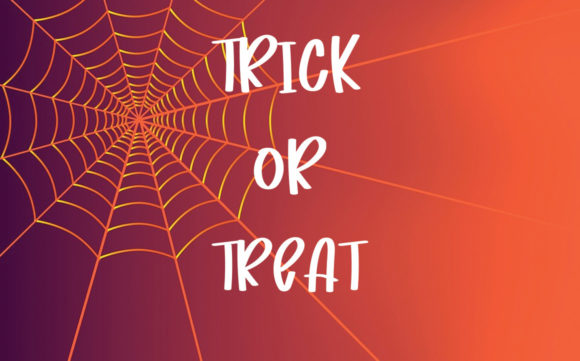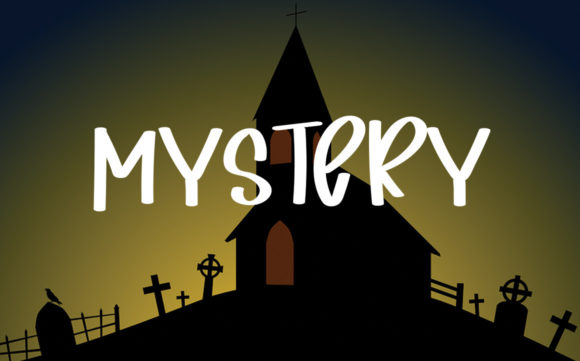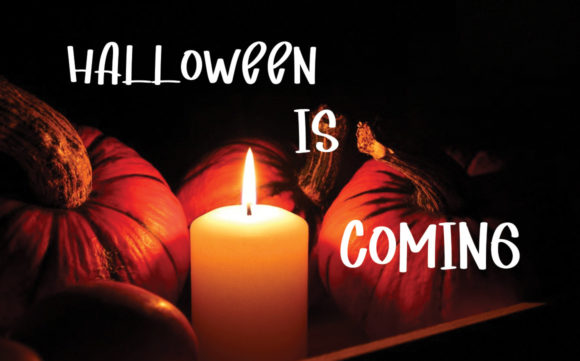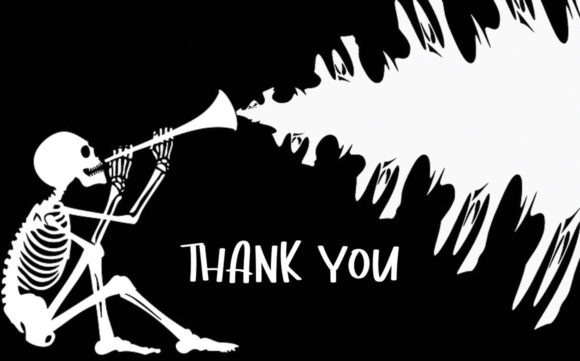
Introduction to Only Monster Font
Remember the moment when you finally nailed that creative project, and everything came together? The perfect blend of colors, the right balance of text and images, and that one element that made it truly pop? For many designers, that moment is often thanks to the right font choice.
Enter the Only Monster Font, a cool, quirky, and informal handwritten font that’s about to become your new go-to design resource. With its high-quality design and transparent background, this font is perfect for adding a personal touch to any project. Whether you’re working on a free download or a paid gig, the Only Monster Font is an incredible asset to your fonts’ library, capable of elevating any creation and making it truly unforgettable.
As a valuable addition to your design arsenal, the Only Monster Font is sure to bring a unique and creative flair to your work, making it stand out in a crowded design landscape.
Key Features of Only Monster Font
- High-quality, unique designs perfect for creative projects and design resources.
- Comes with a transparent background, making it easy to integrate into any design.
- Features a wide range of characters, including uppercase and lowercase letters, numbers, and punctuation marks.
- Unique and creative design, ideal for adding a touch of personality to your design projects.
Honest Review: Only Monster Font
As a designer, I’m always on the lookout for unique and high-quality fonts to elevate my creative projects. Recently, I stumbled upon the Only Monster Font, and I must say, it’s a game-changer.
- ✨ Unique and quirky design that adds a touch of personality to any project.
- ✨ High-quality glyphs and smooth curves make it perfect for both digital and print designs.
- ✨ Transparent background, making it easy to customize and integrate into any design.
- ⚠️ Limited font sizes available, which may not be ideal for larger or smaller text requirements.
- ⚠️ May not be suitable for projects requiring a more professional or formal tone.
Overall, I’m thoroughly impressed with the Only Monster Font. Its unique design and high-quality features make it an excellent addition to any designer’s toolkit. While it may have some limitations, it’s definitely worth considering for your next creative project.
Tips for Getting the Most Out of Only Monster Font
To get the most out of the Only Monster Font, use it with a transparent background to create visually appealing designs. You can also combine it with other fonts to add depth and interest to your creative project.
The Only Monster Font is ideal for use in graphic design, branding, and marketing materials. Its high-quality design and versatility make it a valuable resource for designers and creatives.